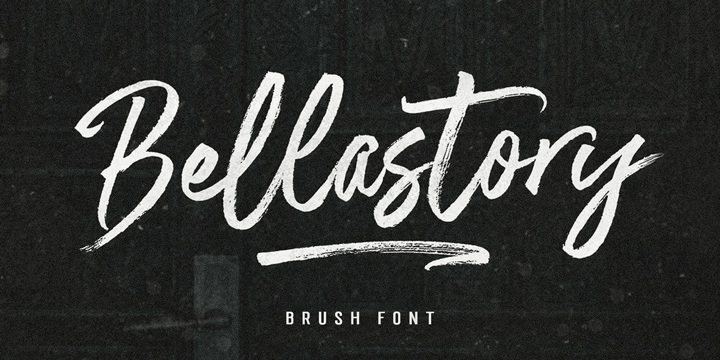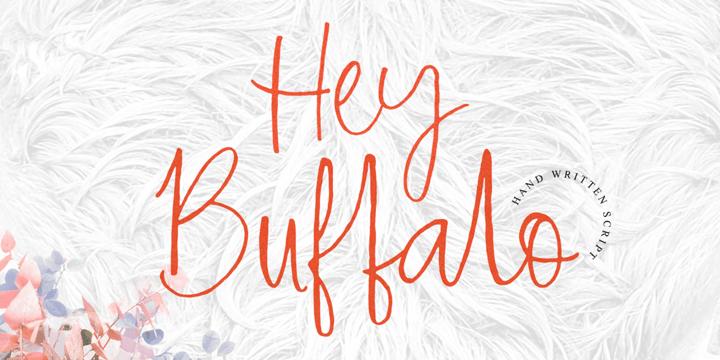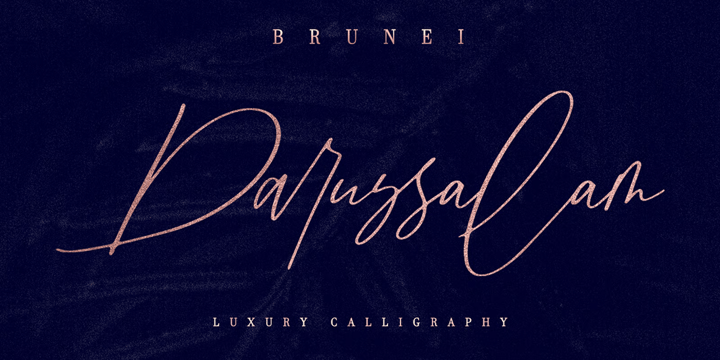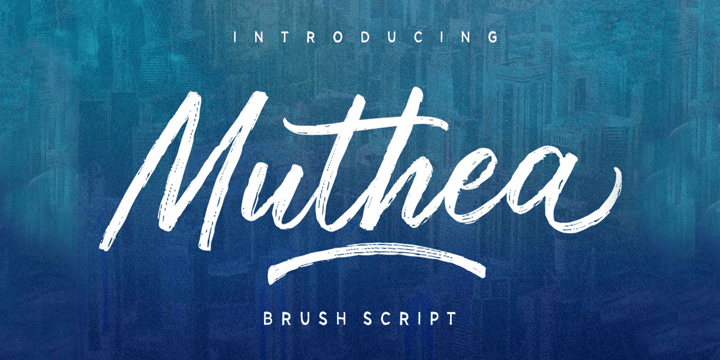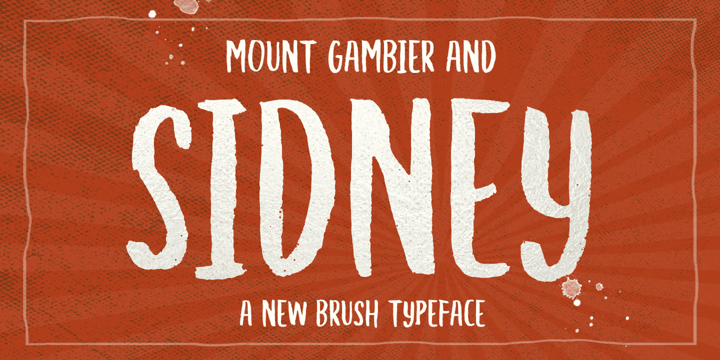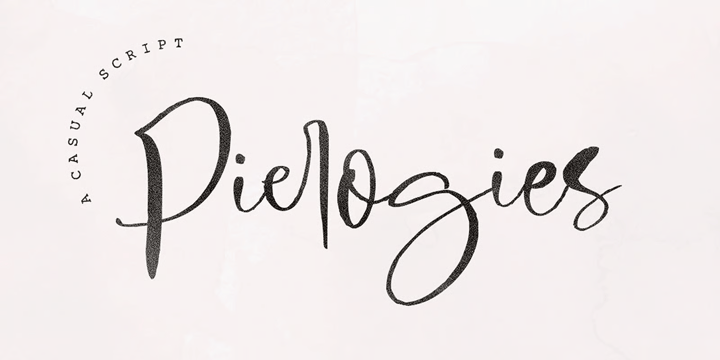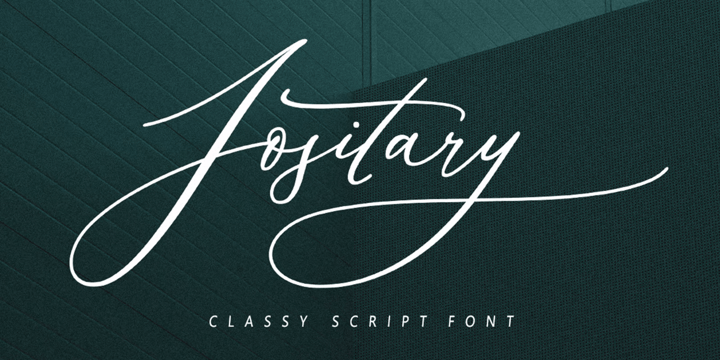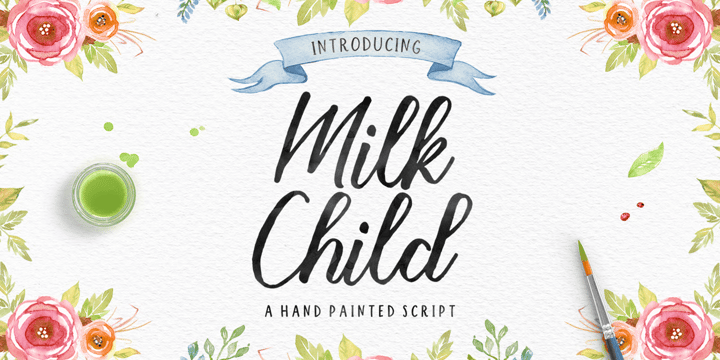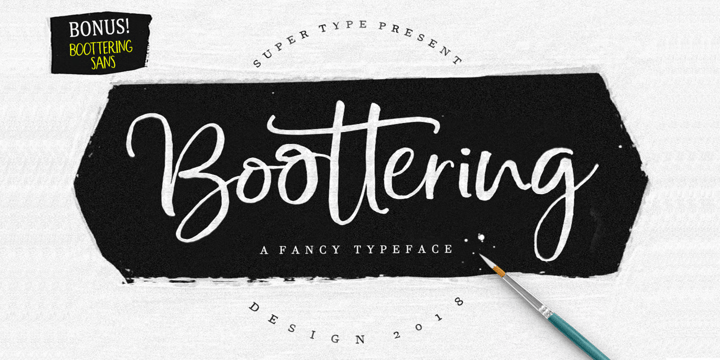
Supertype Font Bundle
You can use it for almost anything like blog headers, posters, t-shirts, clothing, book covers, business cards, branding, magazines and quotes, and much more.